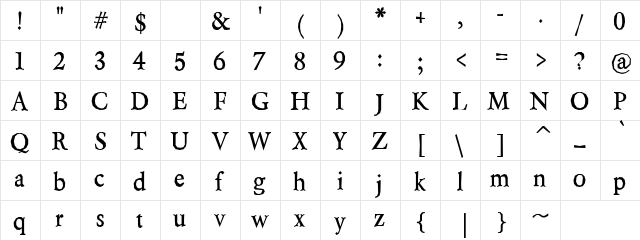
Touch Cynade Regular
Design Context for Touch Cynade Typeface
Touch Cynade is a composed and adaptable typeface that performs quietly and consistently across a wide range of design contexts.
Pro Tip: Use Touch Cynade in both headline and body roles to test its range before committing to a single application.